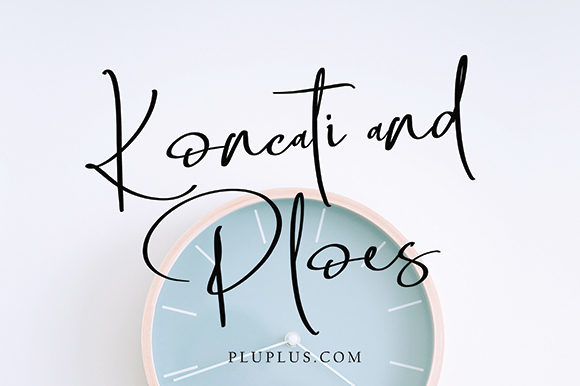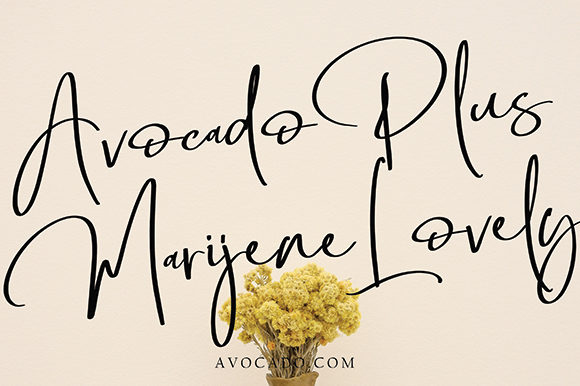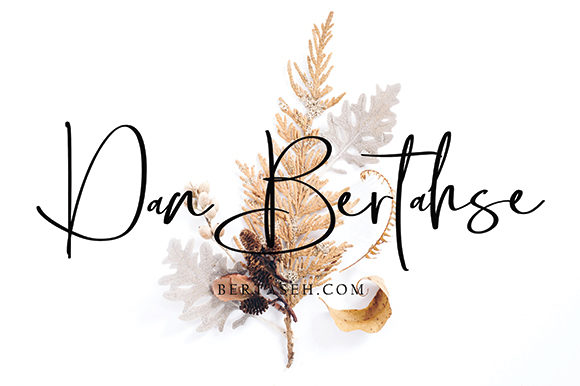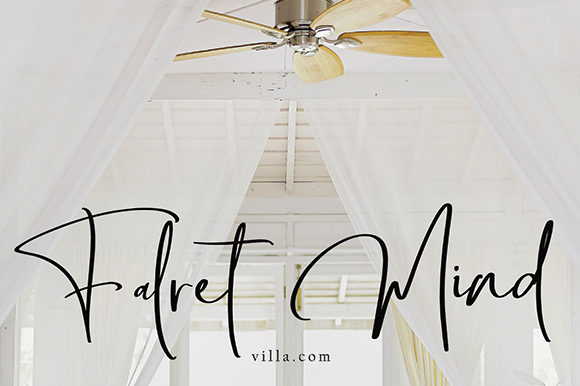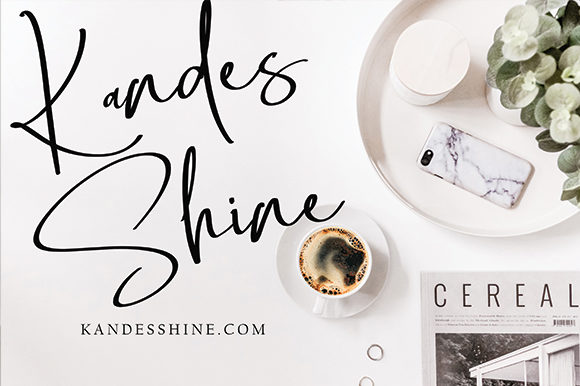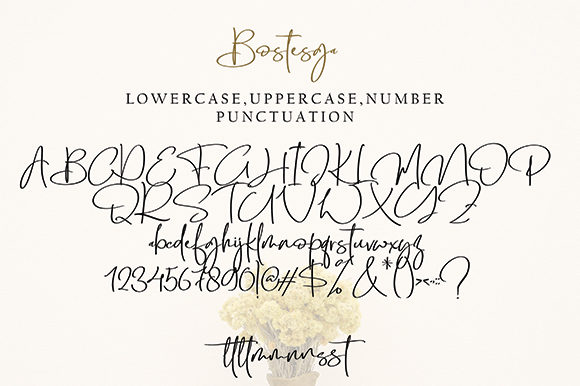
Introduction to Bostesga Font
Do you remember the moment when you stumbled upon that perfect font that made your design project come alive? For many of us, it’s a feeling of pure excitement and joy. And today, we’re excited to introduce you to the Bostesga Font, a thin and flowing handwritten font that’s sure to capture your heart. Whether you’re a seasoned designer or a creative enthusiast, this font is a valuable resource that will elevate your design game.
With its incredibly versatile style, the Bostesga Font is perfect for a wide range of creative projects, from beautiful wedding invitations to stunning social media posts. And the best part? You can download it for free, making it an accessible design resource for everyone. The high-quality design of this font ensures that it looks great on any background, even with a transparent background, making it perfect for layered designs.
Key Features of Bostesga Font
- High-quality design resource ideal for creative projects, including logos, graphics, and more.
- Includes a range of stylish and modern characters, making it perfect for modern creative projects.
Honest Review: Bostesga Font
I recently stumbled upon the Bostesga Font and I must say it’s a great addition to any design resource collection. The high quality of the font is immediately noticeable, making it perfect for any creative project.
- ✨ High-quality design: The font is crisp, clean, and visually appealing.
- ✨ Versatile: The font can be used for a wide range of projects, from headings to body text.
However, I do have to mention a few limitations:
- ⚠️ Limited character set: The font only includes a basic set of characters, which may not be enough for some designers.
Overall, I’m impressed with the Bostesga Font. It’s a great resource for designers looking for a high-quality font for their creative projects. While it may have some limitations, it’s definitely worth checking out.
Tips for Getting the Most Out of Bostesga Font
For the best results, use the Bostesga Font in conjunction with high-quality images and graphics. Experiment with different font sizes and styles to create a visually appealing design. Additionally, consider using the font’s transparent background feature to create a professional-looking design.
The Bostesga Font is a versatile design resource that can be used in a variety of creative projects, including logos, business cards, and brochures. Its high-quality design and transparent background feature make it an ideal choice for designers looking to create professional-looking designs.